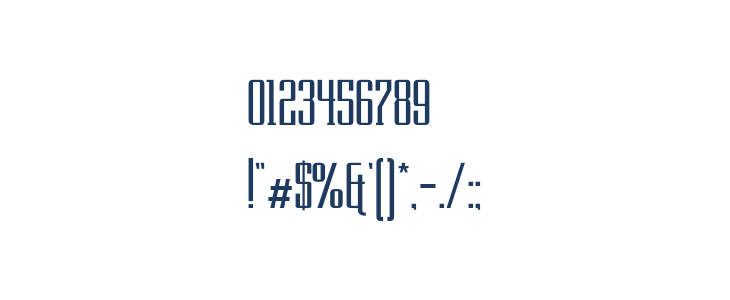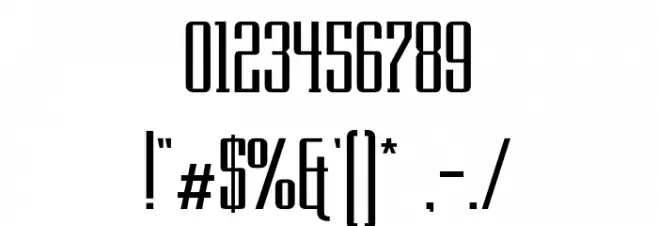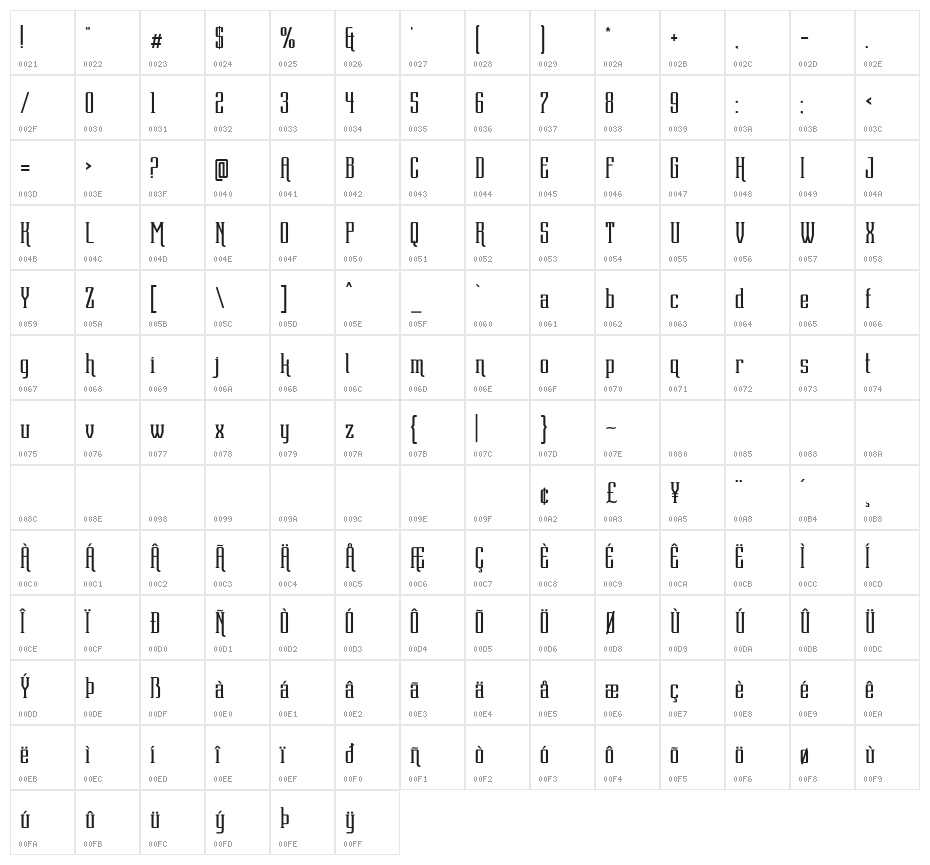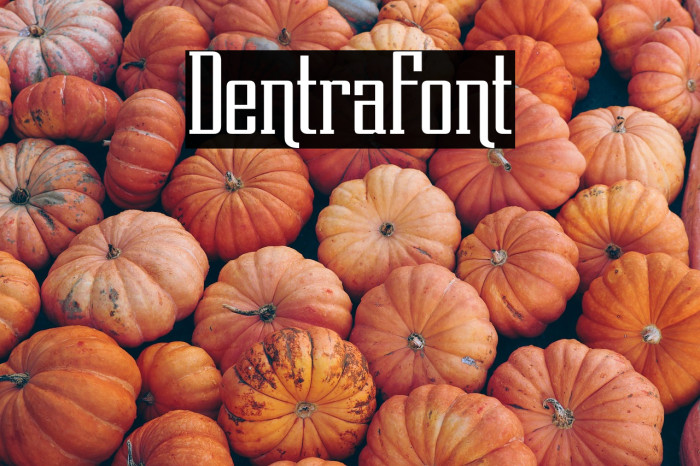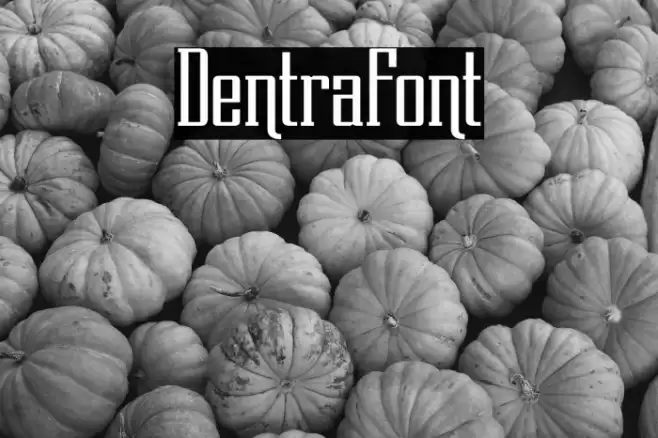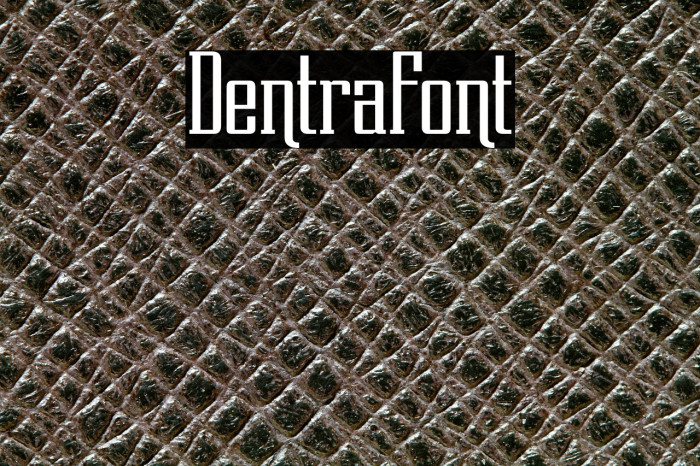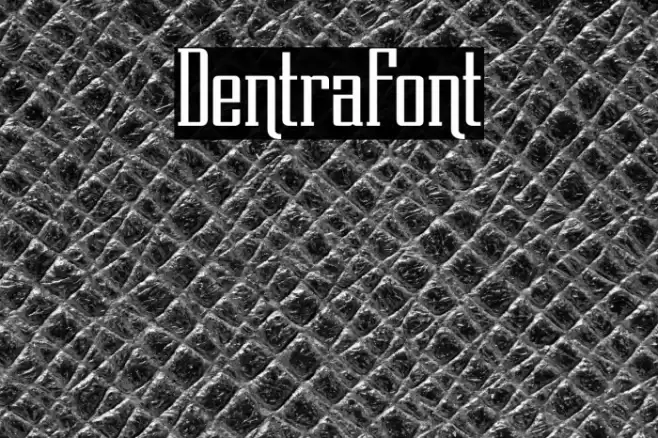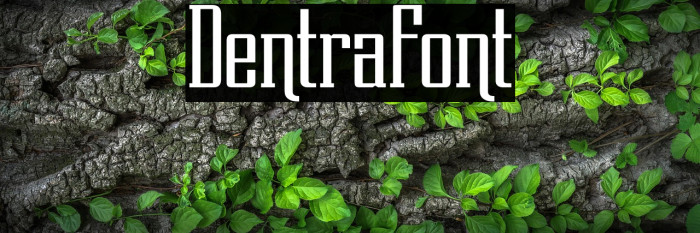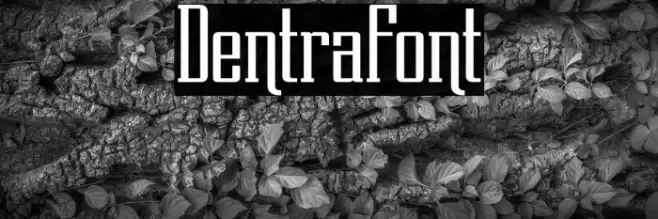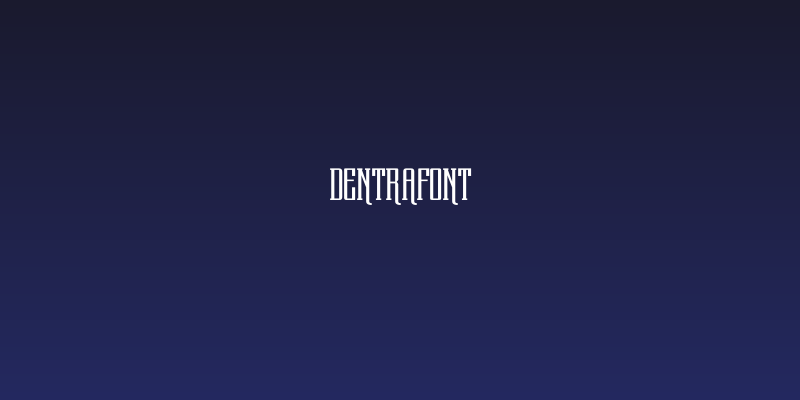
DentraFont Font
DentraFont Description
This font features a bold and striking design with a distinct vintage flair. The characters are tall and narrow, with sharp, angular serifs that give it a unique, almost gothic appearance. The uppercase letters are particularly elongated, while the lowercase letters maintain a consistent height, adding to the font's overall uniformity. The numbers and special characters are designed to match the boldness of the alphabet, ensuring a cohesive look across all text. This font's strong presence makes it ideal for attention-grabbing headlines or titles.
| Proposed Projects | Ideal for vintage-themed posters, book covers, or branding that requires a strong, distinctive typeface. |